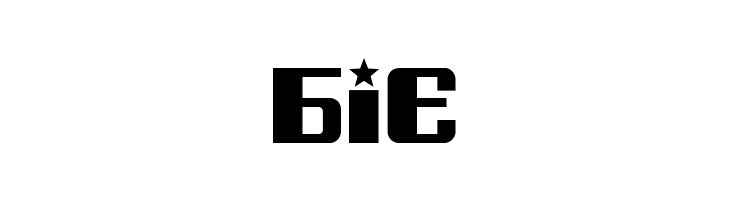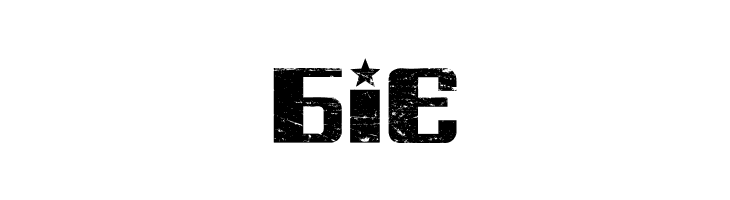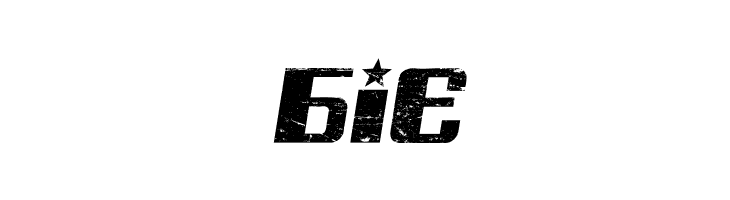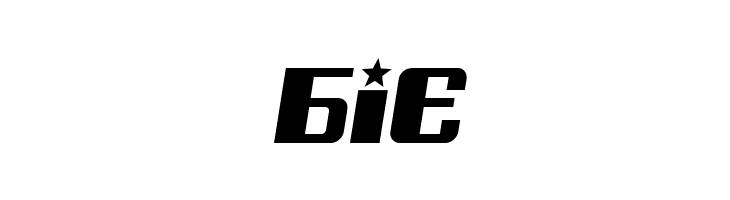
A bold, grunge-style italic font with a distressed texture and decorative elements.
A bold, distressed font with a grunge effect and stencil-like appearance.
A bold, italic font with dynamic, blocky characters and decorative elements.
A bold, geometric font with industrial and decorative elements.